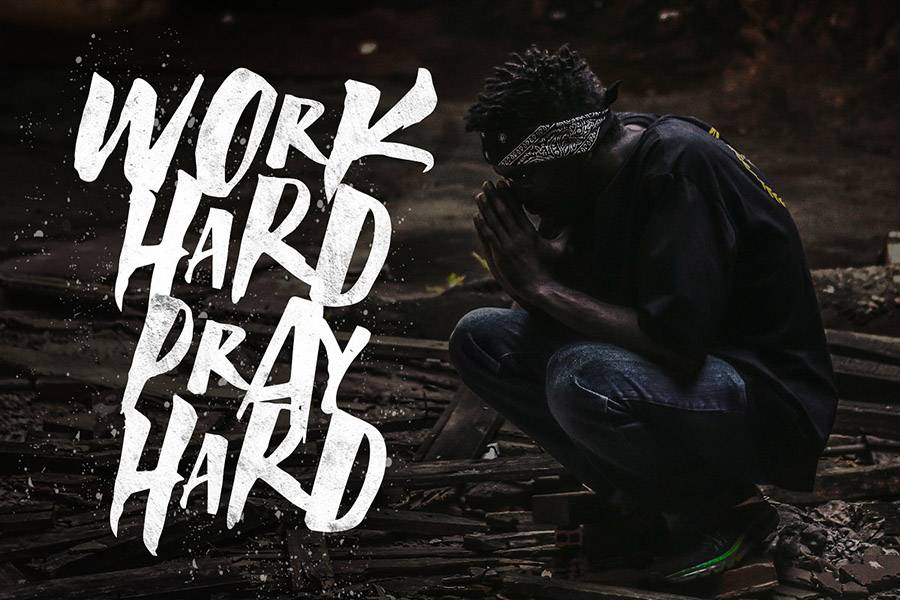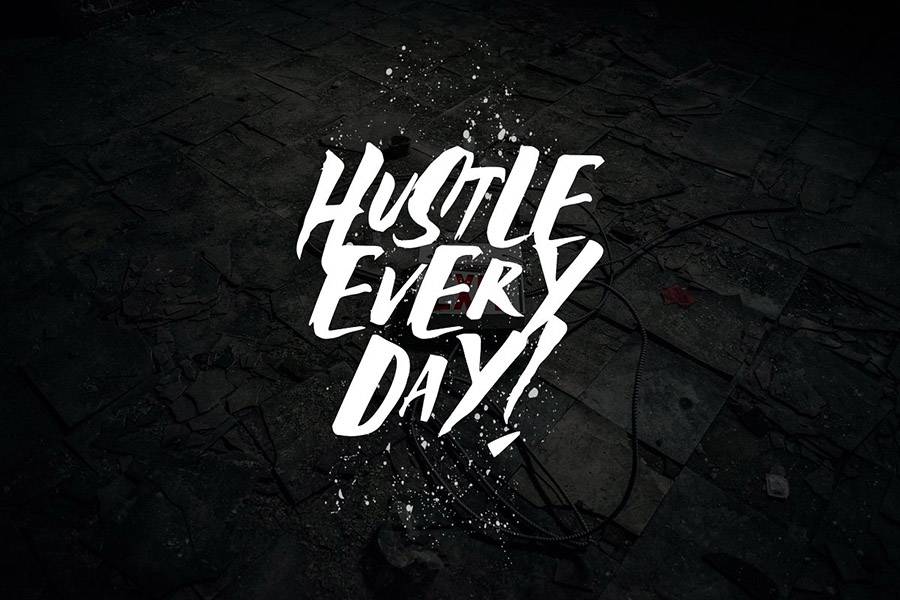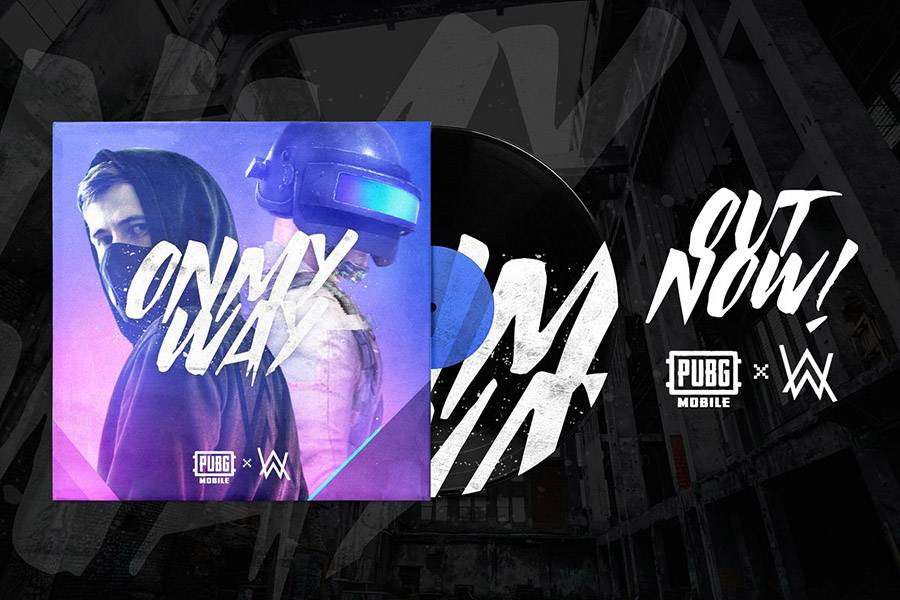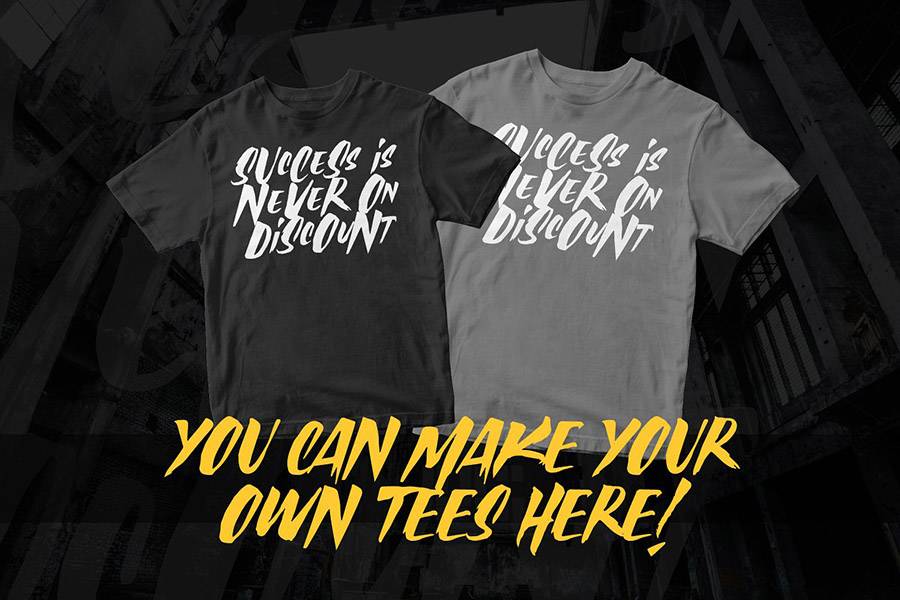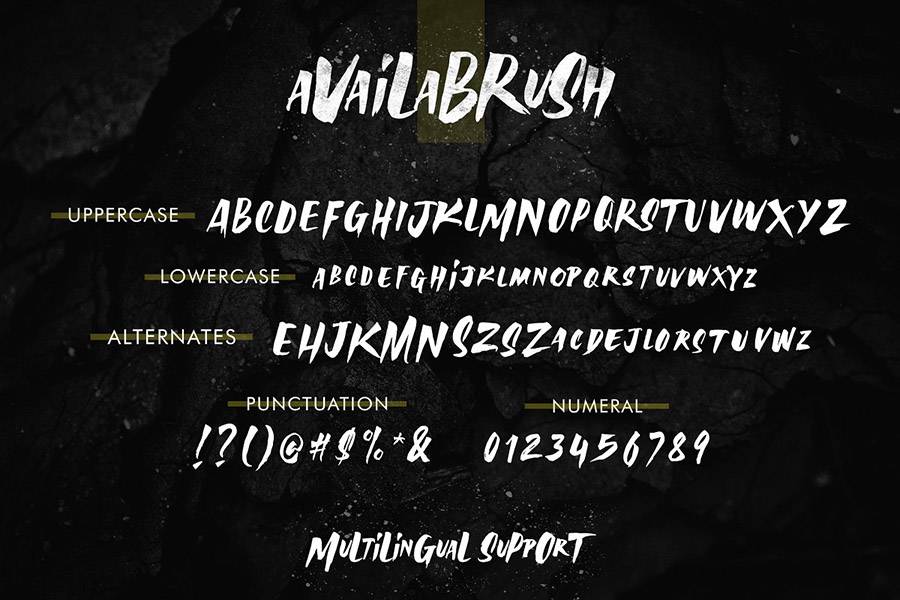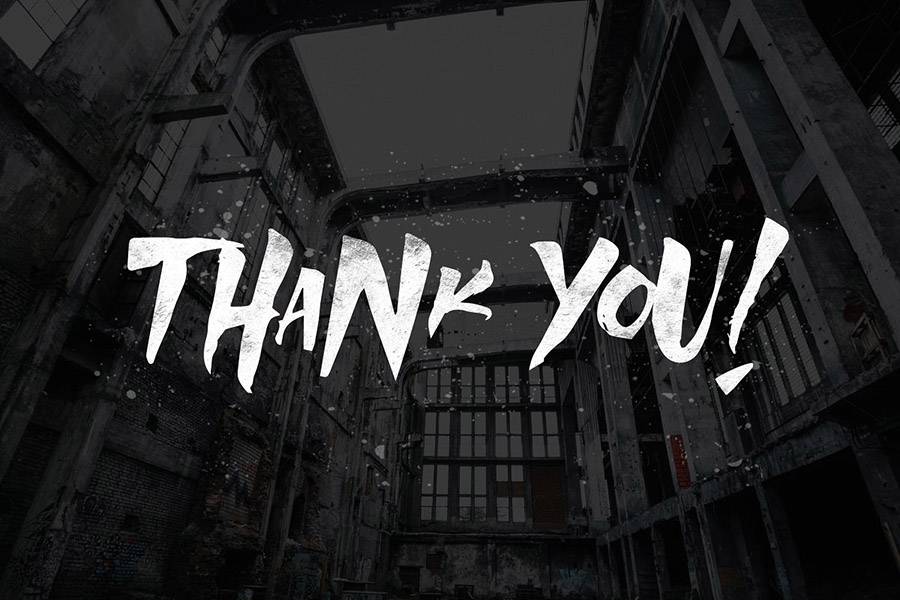
Availabrush is a dynamic display brush font with bold, expressive strokes that convey energy and creativity. Its rough, hand-painted style with varied thickness and sharp edges makes it perfect for eye-catching headlines, logos, and artistic branding where a spontaneous, modern feel is desired. This font stands out in designs that want to communicate personality and a lively, handcrafted vibe.
Availabrush Display Brush Font
About Availabrush Display Brush Font
| Font family | Availabrush Display Brush Font |
| Release date | 2019-04-15 |
| Designer | Dimas Aditya |